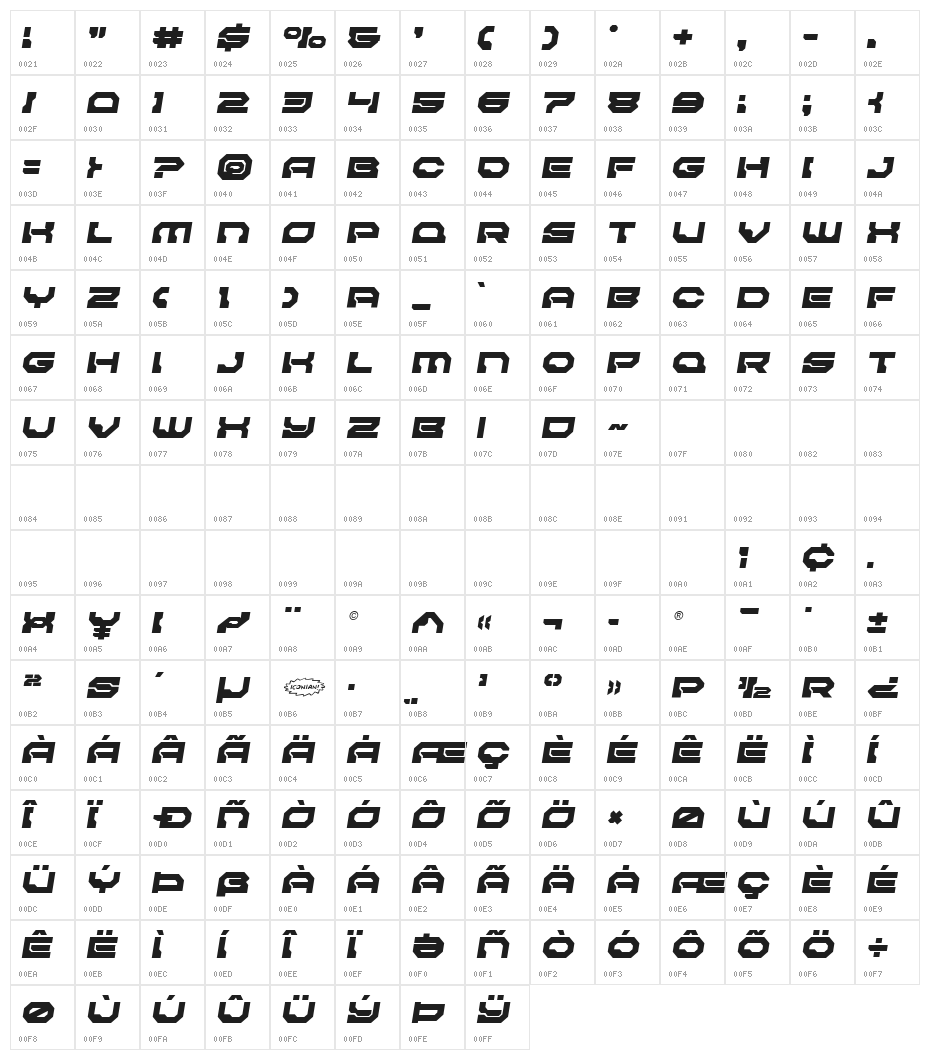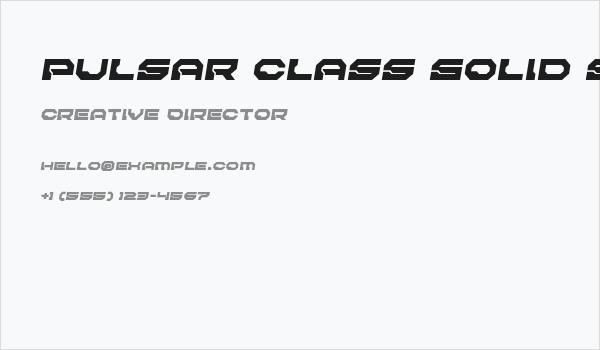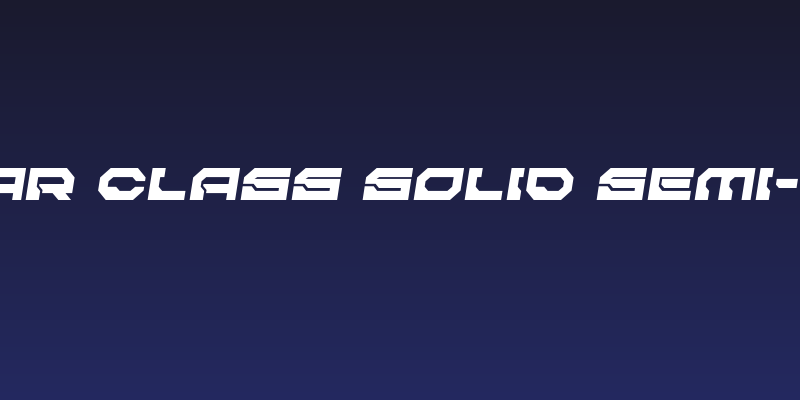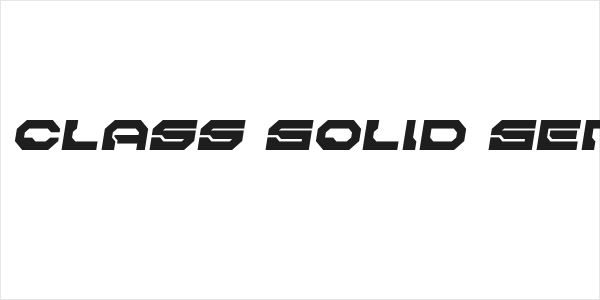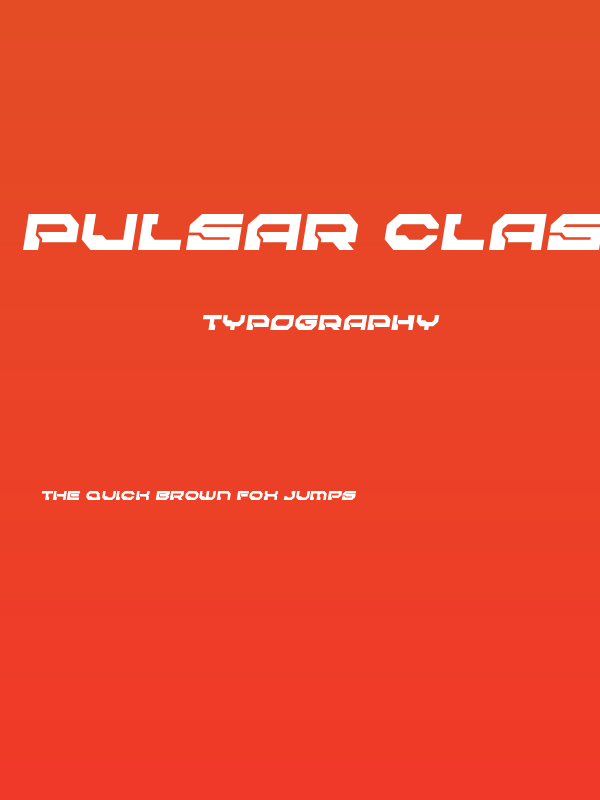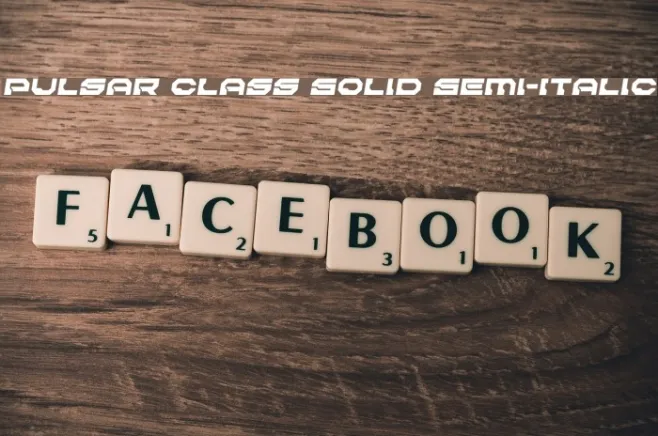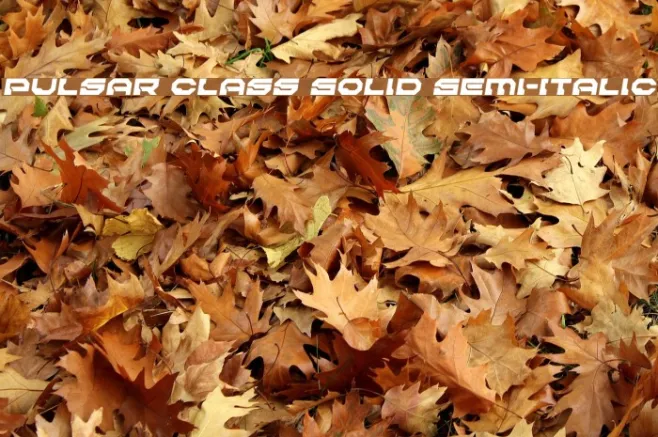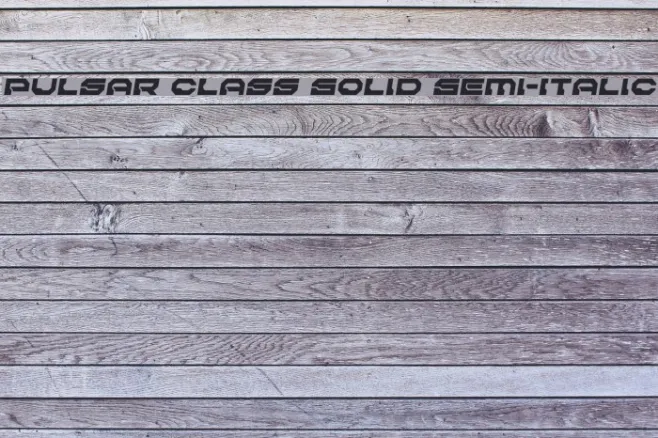
Pulsar Class Solid Semi-Italic Font
Pulsar Class Solid Semi-Italic Description
This font features a bold, futuristic design with angular and geometric shapes. The characters are solid and semi-italic, giving a dynamic and forward-moving appearance. The uppercase and lowercase letters maintain a consistent style, with sharp edges and a slightly condensed form. Numbers and special characters follow the same aesthetic, ensuring uniformity across all glyphs. The overall look is modern and tech-inspired, suitable for projects that require a strong and impactful visual presence.
| Proposed Projects | Ideal for sci-fi themed designs, technology branding, video game titles, and futuristic posters. |